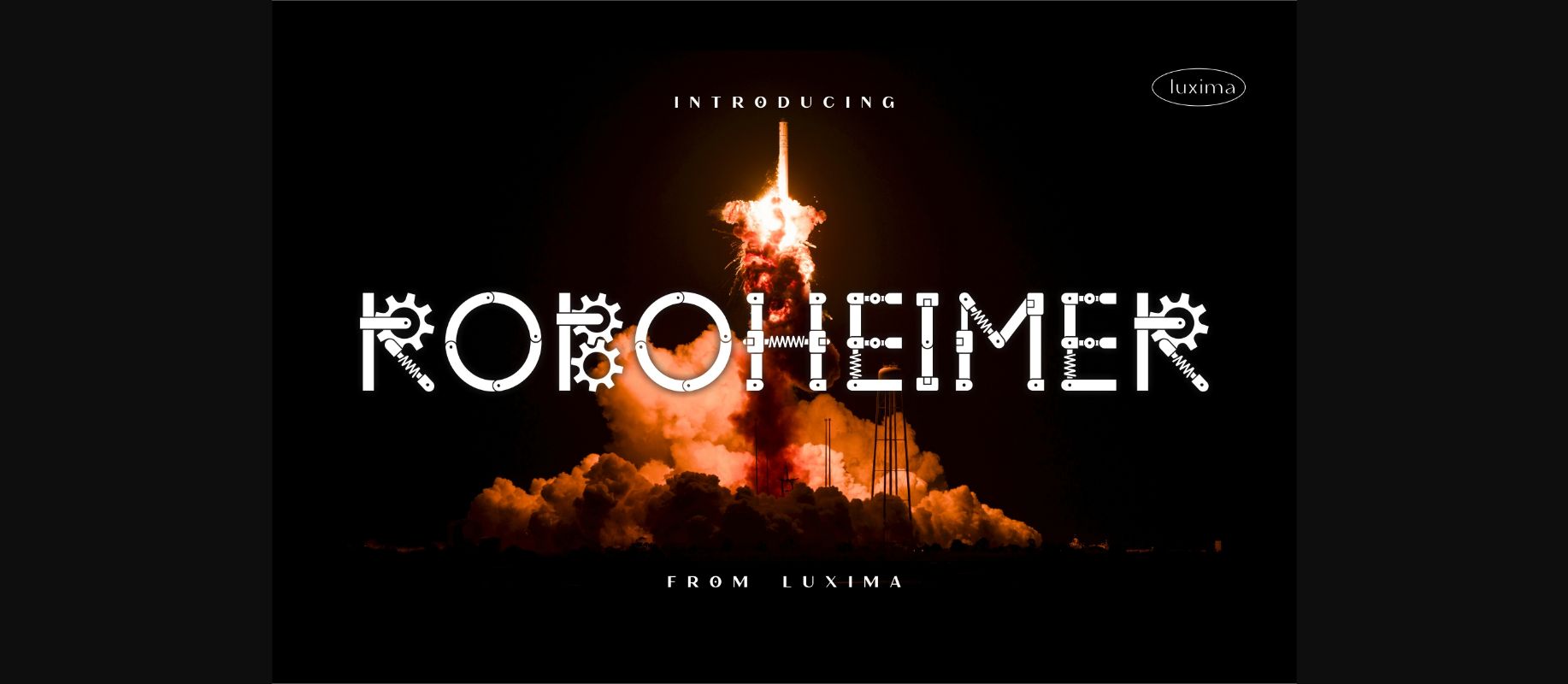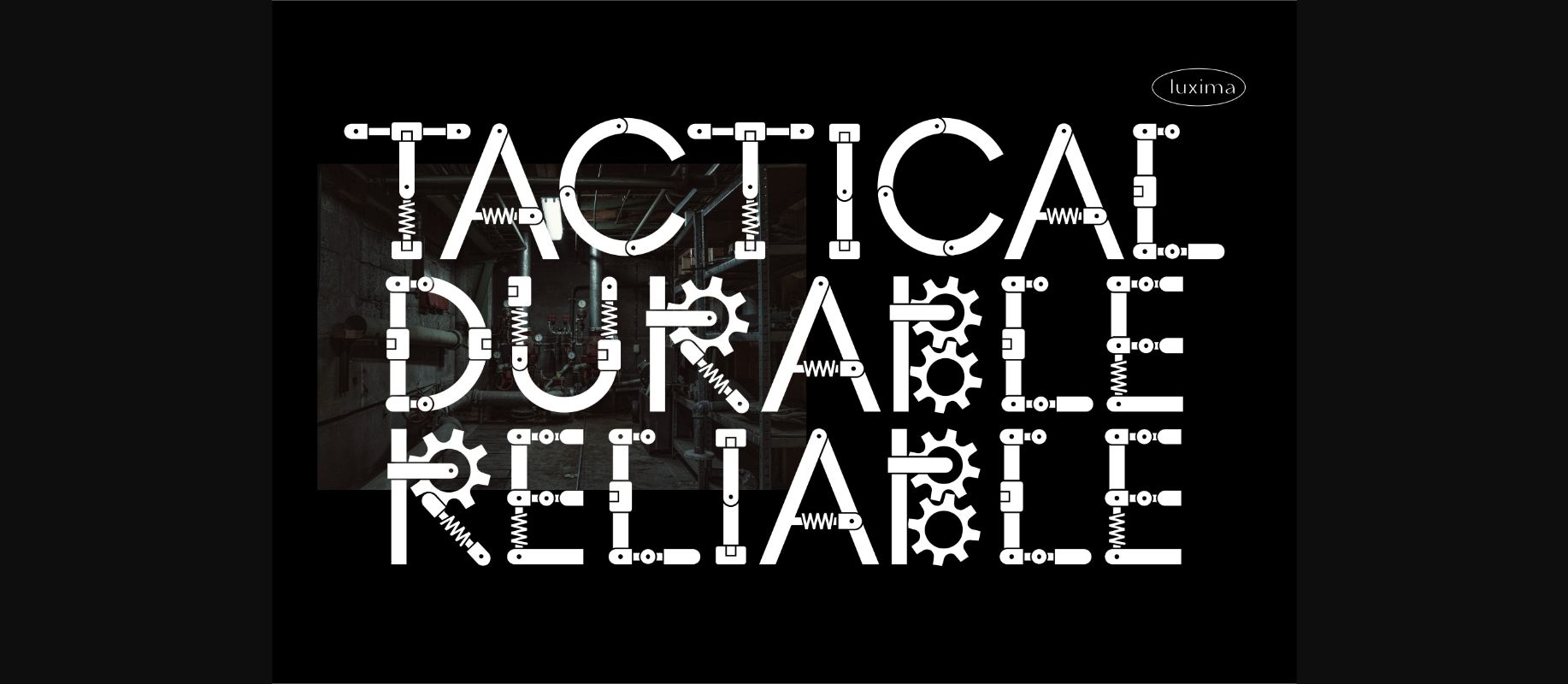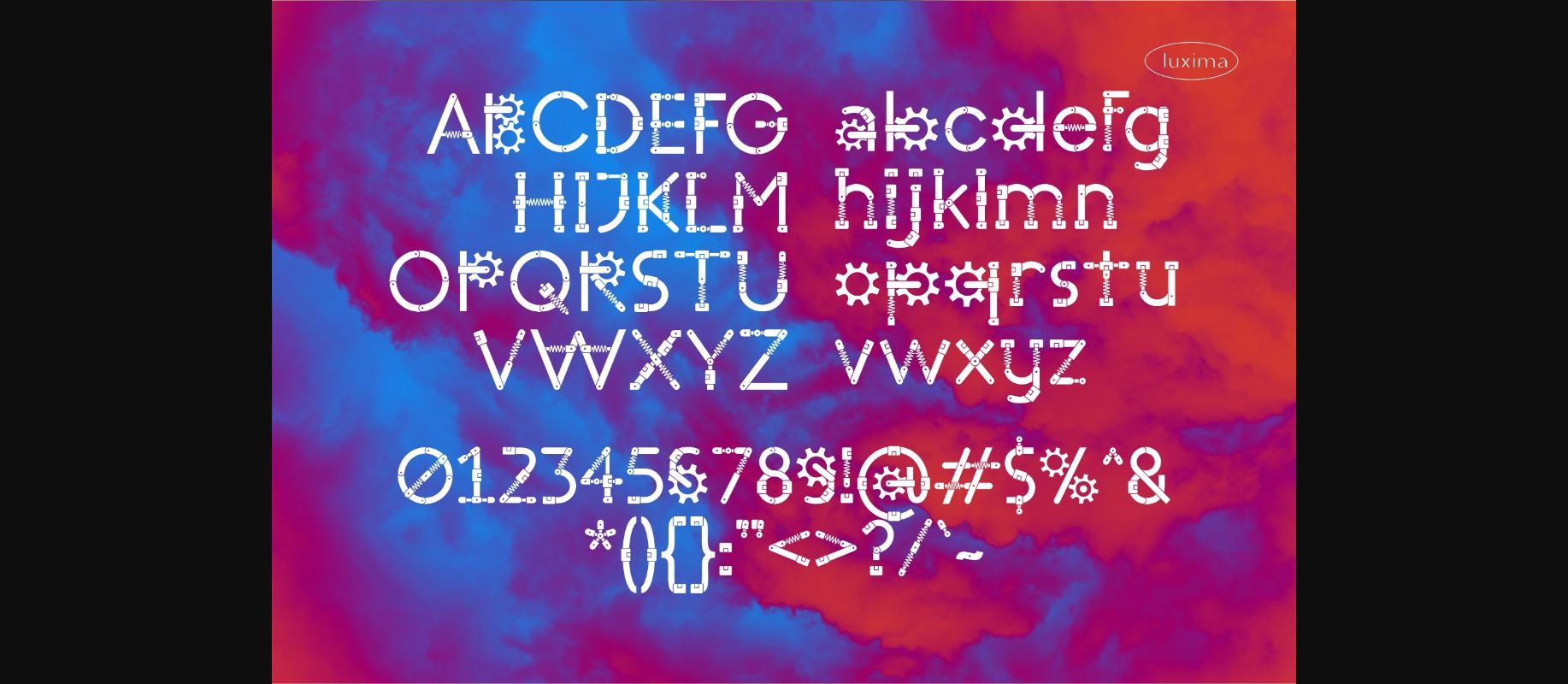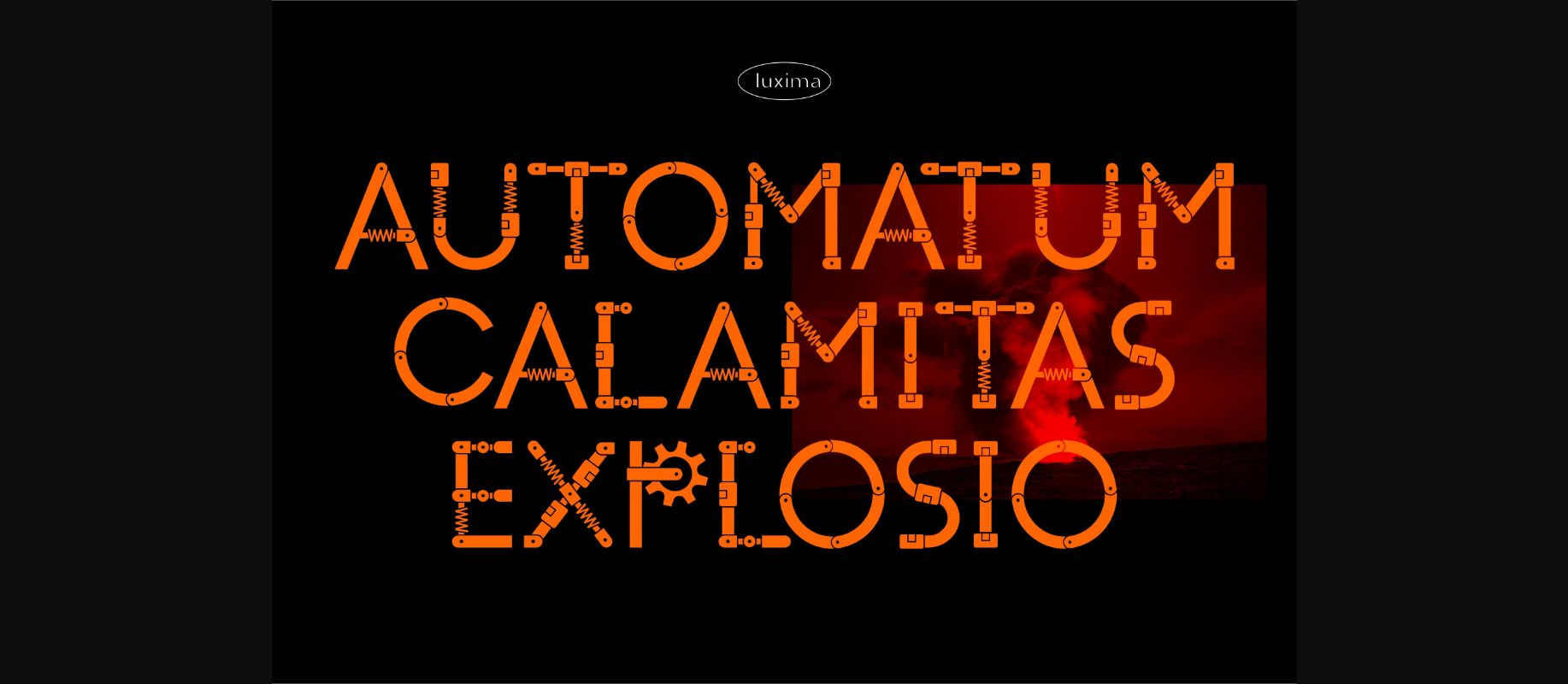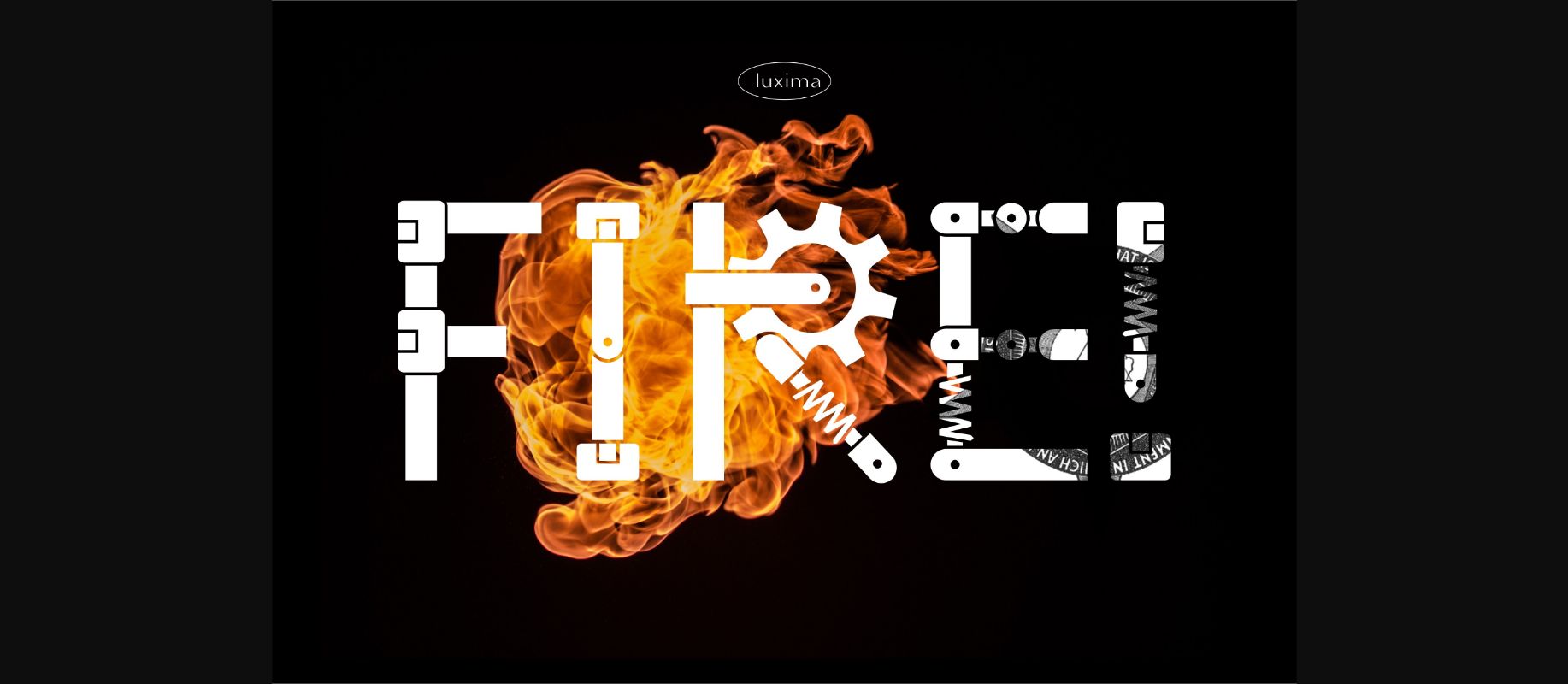
Roboheimer Font
About Roboheimer Font
Let Roboheimer be the driving force behind your projects, effortlessly instilling a touch of mechanical elegance. With its intricate lines and precision-engineered curves, every letter showcases a harmonious fusion of technology and art.